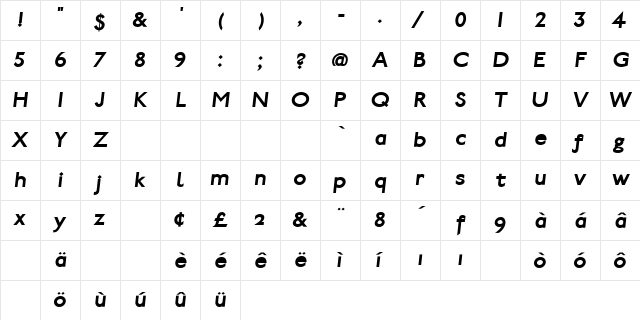
Paddington BoldItalic
Design Context for Paddington Typeface
Paddington is a composed and adaptable typeface that performs quietly and consistently across a wide range of design contexts. The slanted form adds forward momentum and visual energy. The heavy weight commands attention and anchors typographic hierarchies.
Pro Tip: Use Paddington for emphasis, pull quotes, and subheadings where its slanted energy can add rhythm to the layout.